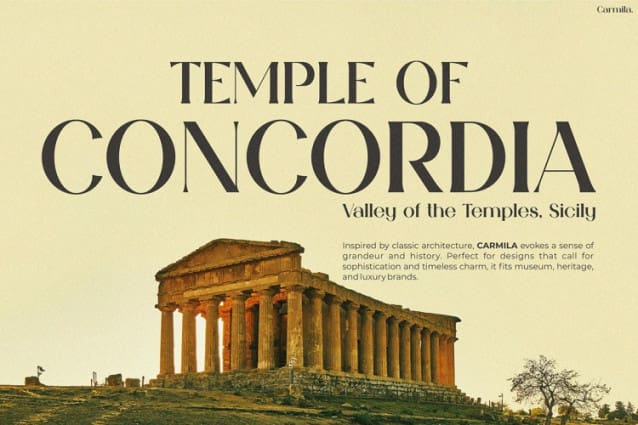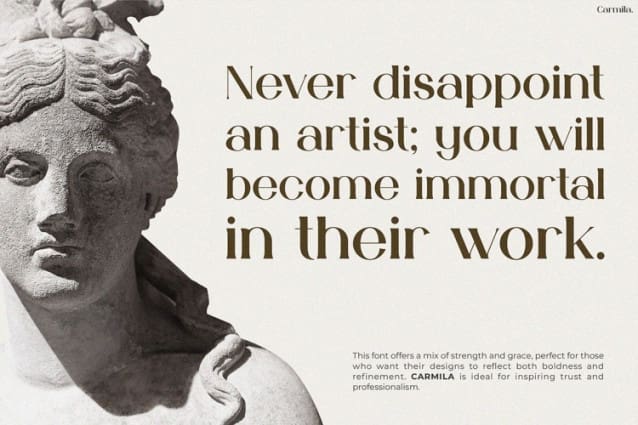
Carmila Serif Font
Carmila Serif Font is a refined serif typeface that exudes sophistication, strength, and timeless beauty. Designed for creators who seek a perfect balance between modern minimalism and classic elegance, Carmila features high-contrast strokes, sharp details, and graceful curves. As a result, each letter carries a sense of confidence, making it an ideal choice for projects that require both power and refinement.
This font seamlessly blends luxury with readability, making it highly versatile for various design needs. Moreover, its bold yet elegant structure ensures that text commands attention without overwhelming the reader. The unique letterforms provide a prestigious feel, enhancing visual hierarchy in any composition. Whether for branding, editorial designs, or social media graphics, Carmila Serif elevates every project with its strong yet graceful aesthetic.
As a high-end Instagram font, Carmila Serif naturally enhances social media visuals, making posts look polished and professional. Furthermore, whether you’re designing for personal branding, lifestyle content, or high-fashion campaigns, this font captures the audience’s attention effortlessly. The well-crafted letter spacing and modern appeal ensure that it remains stylish across different platforms.
Beyond digital use, Carmila Serif also excels in print media, such as luxury magazines, wedding invitations, and corporate branding. Thanks to its sophisticated structure, it integrates seamlessly into high-end editorial layouts, ensuring your design looks flawless in both digital and physical formats.